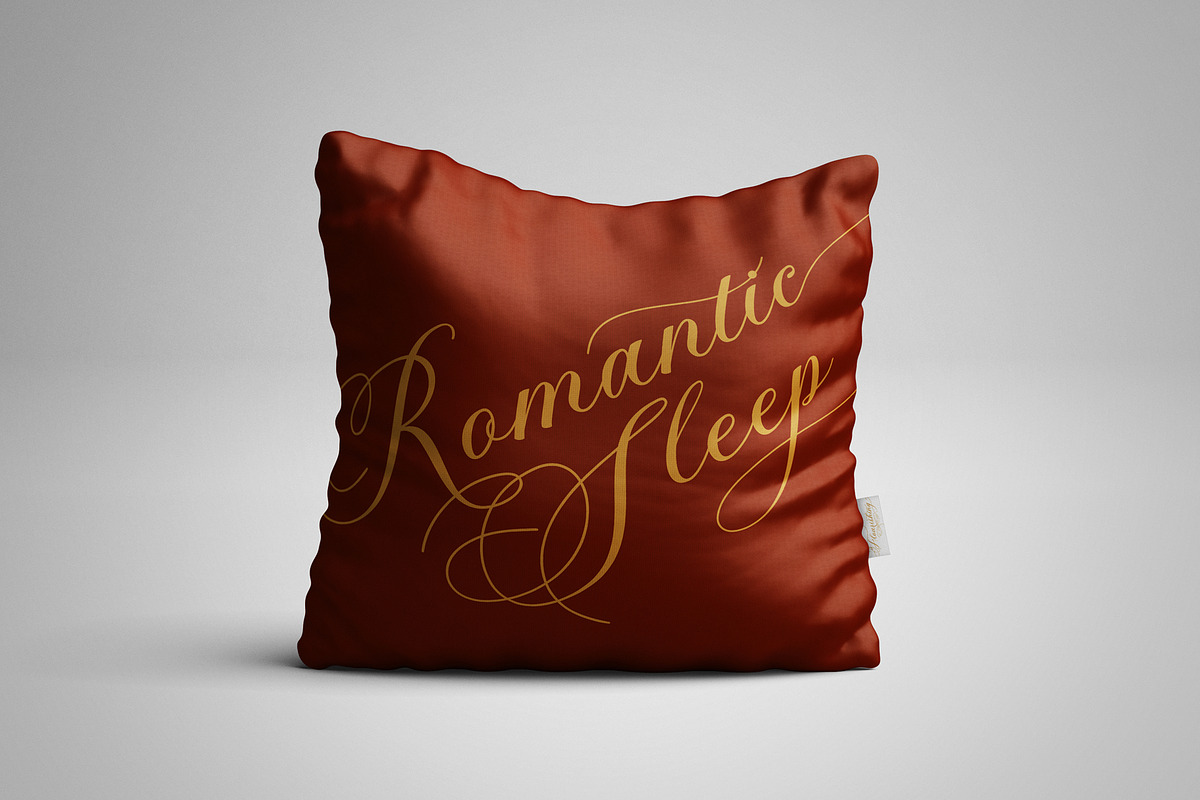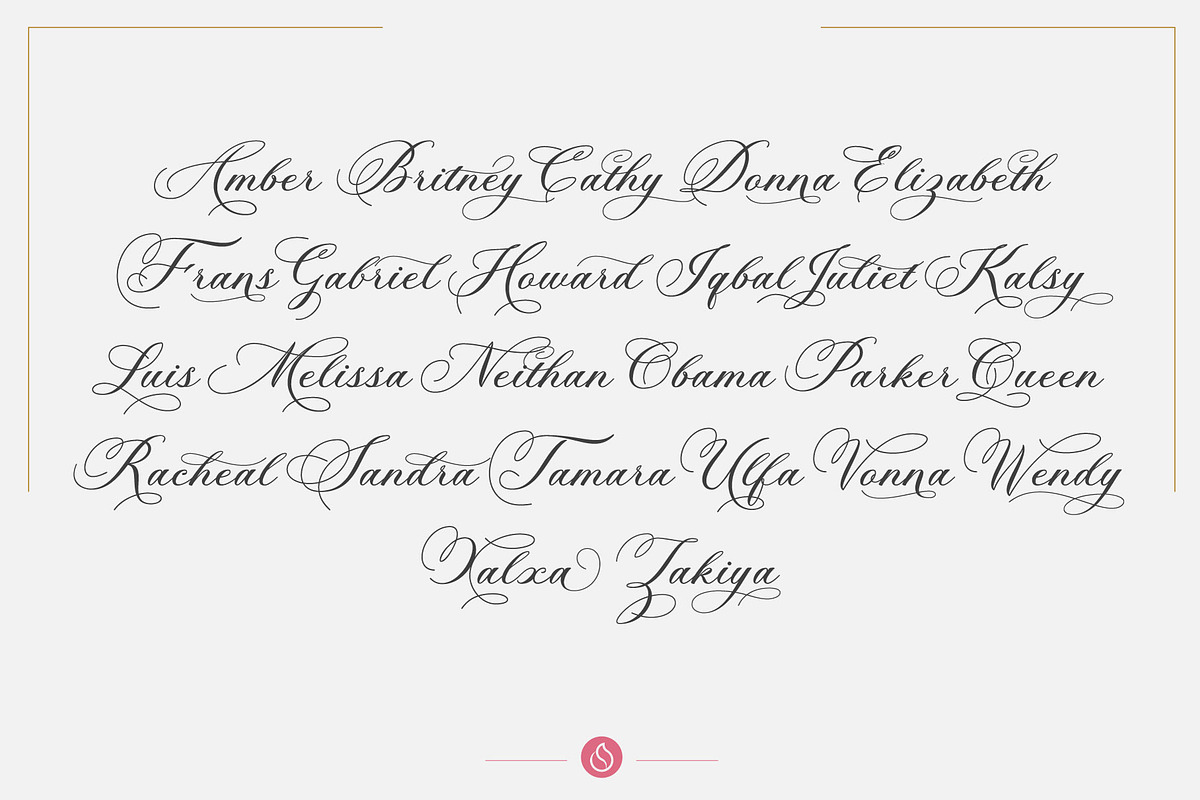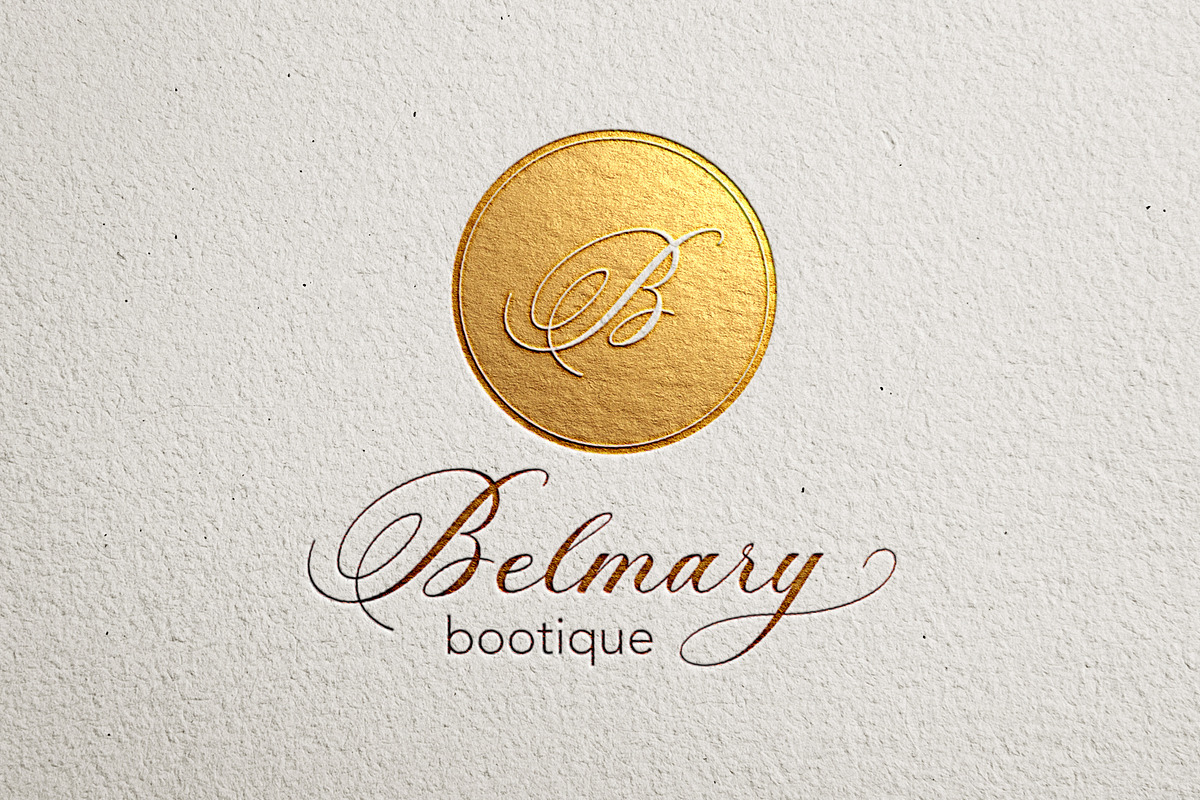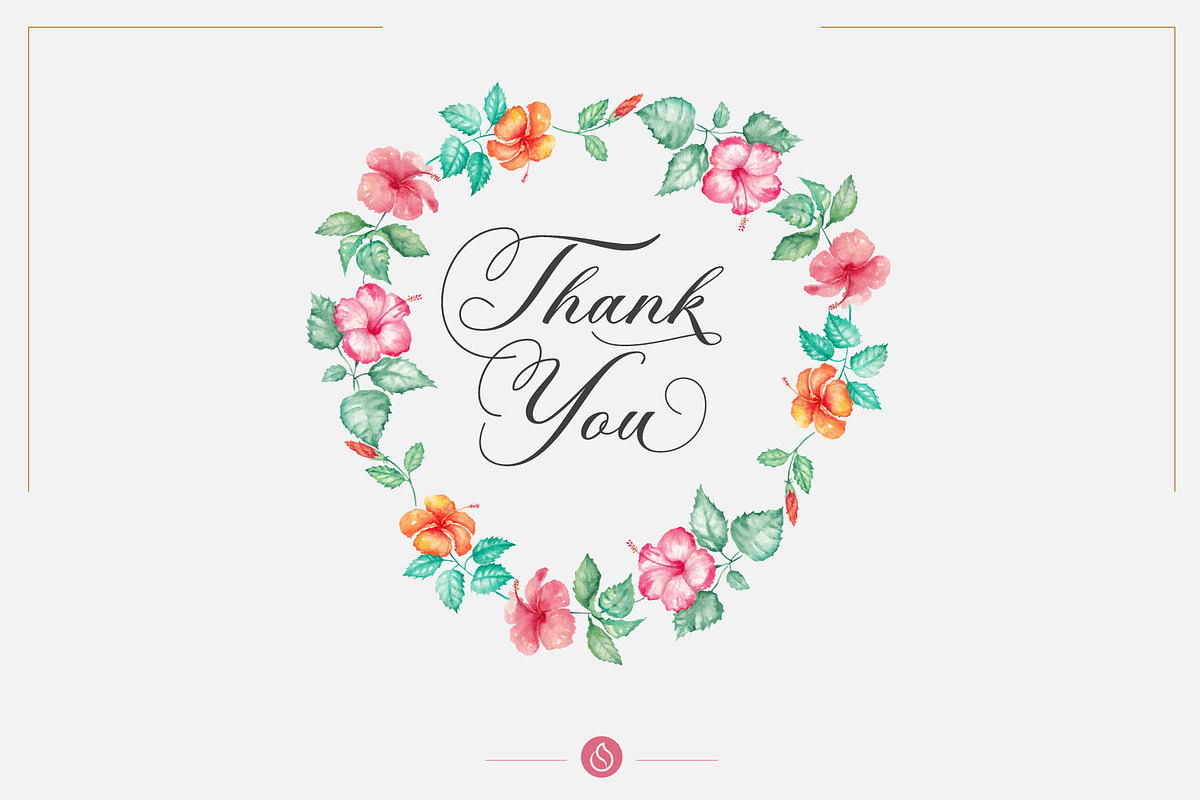
Flourishing Script
Flourishing the Most Stunning Script Font for Wedding Invitations
Flourishing is a stunning script font with classy and elegant design, perfect for wedding invitation and other sophisticated projects.
Nothing more beautiful for wedding invitations than a stunning script font. Flourishing is the best option to add that classic touch to your invitation. Classy and elegant, this typeface adds a beautiful touch to a special design, inspired by beautiful calligraphic lettering.
Why Flourishing?
Wedding font for invitations should reflect the importance of that special event. With the happy couple becoming the royals of the day, script font can better convey that feeling.
Flourishing is a classic-style script font, inspired by the beautiful handwriting of yore. Imagine the letters written by poets, musicians, and authors of the past, and add the typeface to a wedding invitation. A perfect addition to already special design for a celebration.
Flourishing comes with multiple alternates and glyphs with exaggerated, flowy styles. Each stroke feels natural despite being decorative and extravagant. Even the basic characters have these elegant, flowy qualities in them. The ribbon-like swashes and ascenders add the calligraphic quality to the typeface.
Recommended Uses
You can make the most beautiful wedding invitation, but it is not the only use for this stunning script font.
Flourishing serves well as invitation fonts for other “classy” events, like dinner party, recital, private concert, and exclusive art exhibition. You can also make a beautiful artwork for zine, book, and magazine covers, especially in topics like art, wedding planning, fashion, and interior design.
Flourishing also has the perfect look for text-based logo. Use it to promote products such as luxury fashion, jewelry, and accessories like shoes and handbags. The font is also great to promote gourmet food and beverages, like cupcakes, pastries, cakes, fruits, wine, and many more.
Flourishing is a stunning script font for beautiful wedding invitations and other beautiful designs. Get Flourishing now and start invoking elegance in your every design.